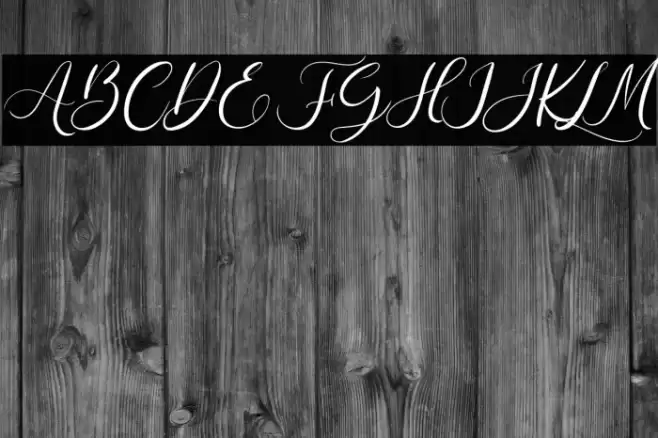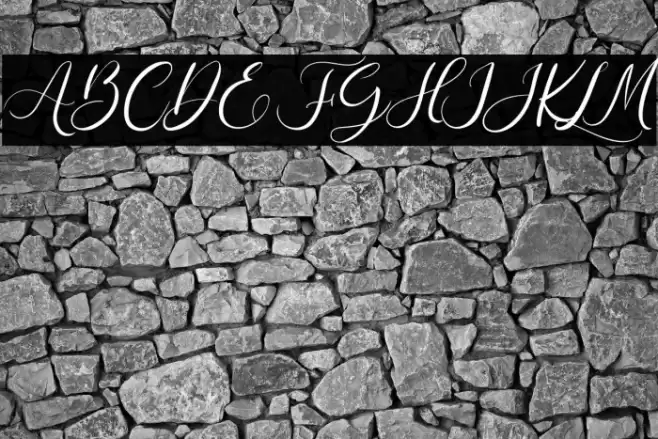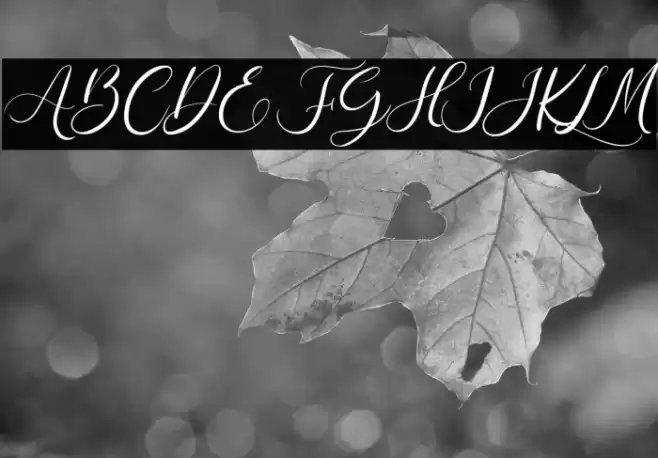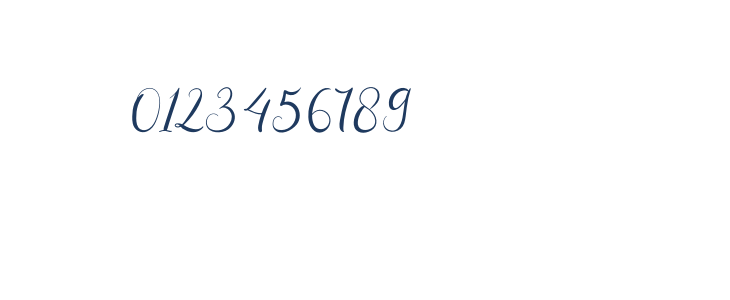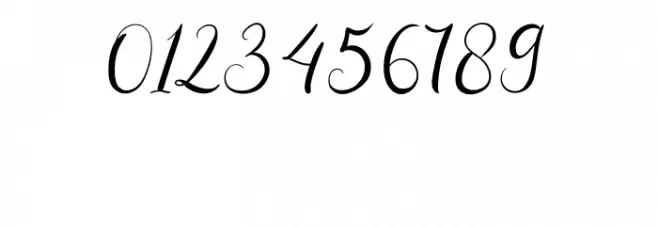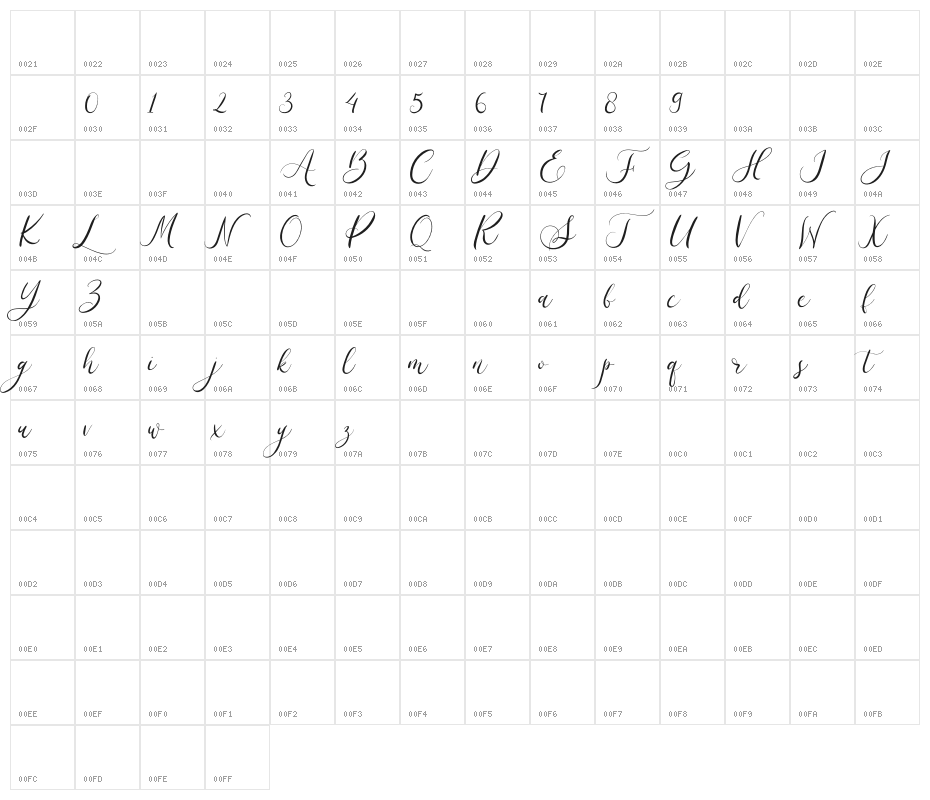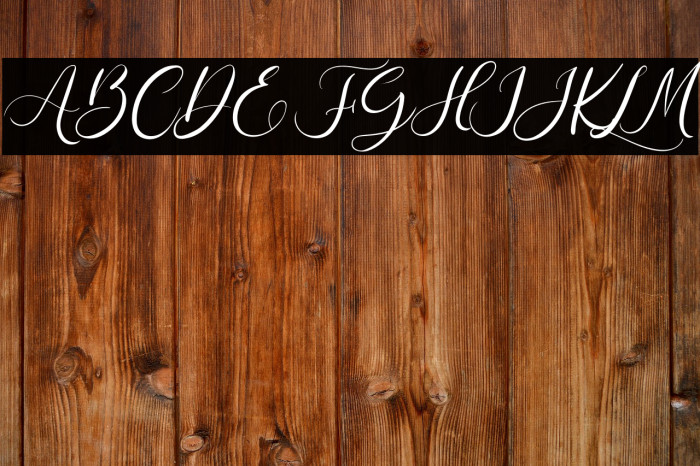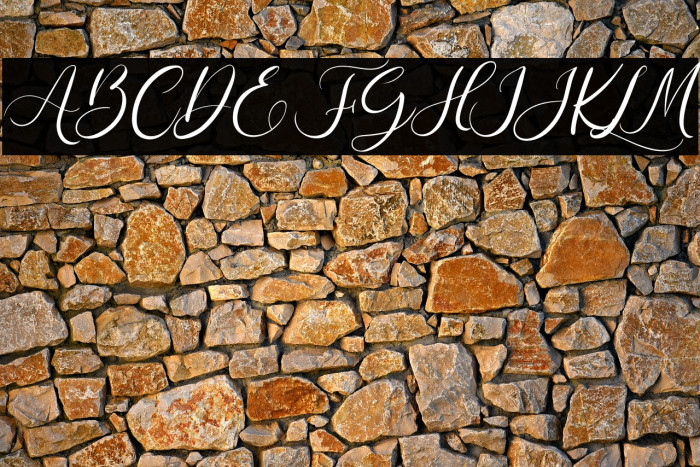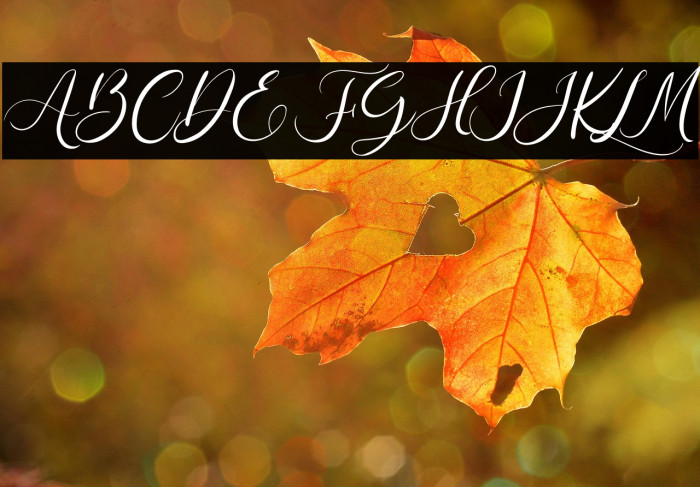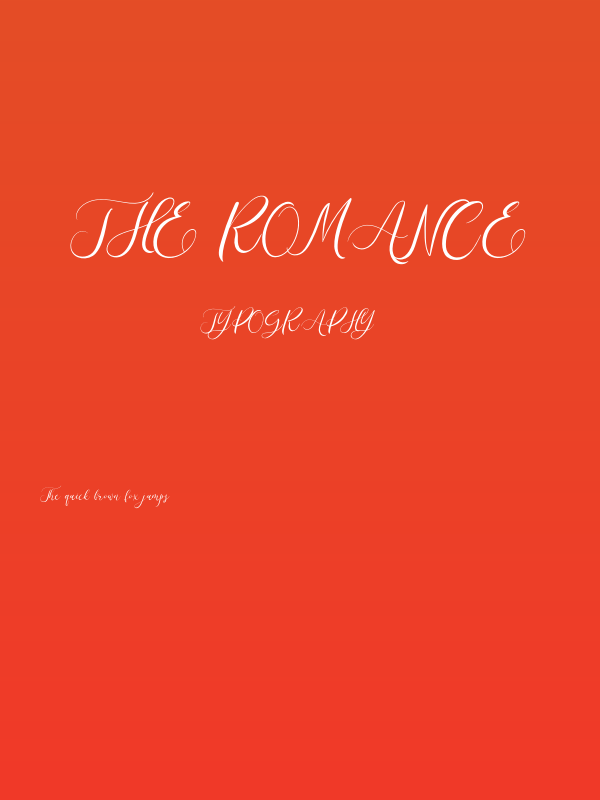
The Romance Font
The Romance Description
This elegant script font features flowing, cursive letterforms with intricate swashes and flourishes. The uppercase letters are particularly ornate, with extended strokes and loops that add a sense of sophistication and grace. The lowercase letters maintain a consistent style, offering a harmonious blend of curves and lines. The numerals are designed to match the overall aesthetic, with a touch of flair that complements the alphabet. This font exudes a romantic and artistic vibe, making it ideal for projects that require a touch of elegance and creativity.
An elegant script font with flowing, ornate letterforms and intricate swashes from Uncategorized fonts.
- Font: The Romance
- Proposed Projects: Ideal for wedding invitations, greeting cards, branding, and elegant packaging designs.
- Overall Style: Romantic
- Use Case: Logos, Invitations, Decorative text